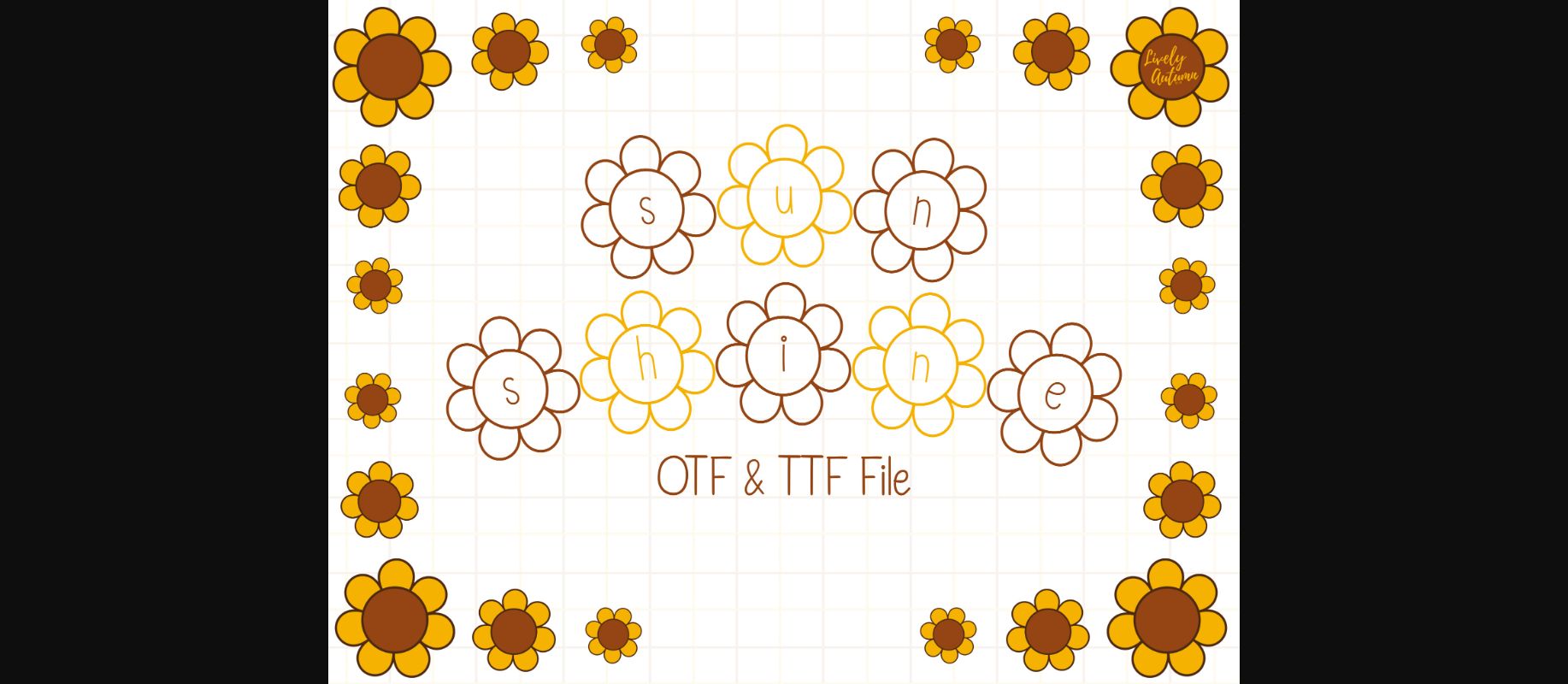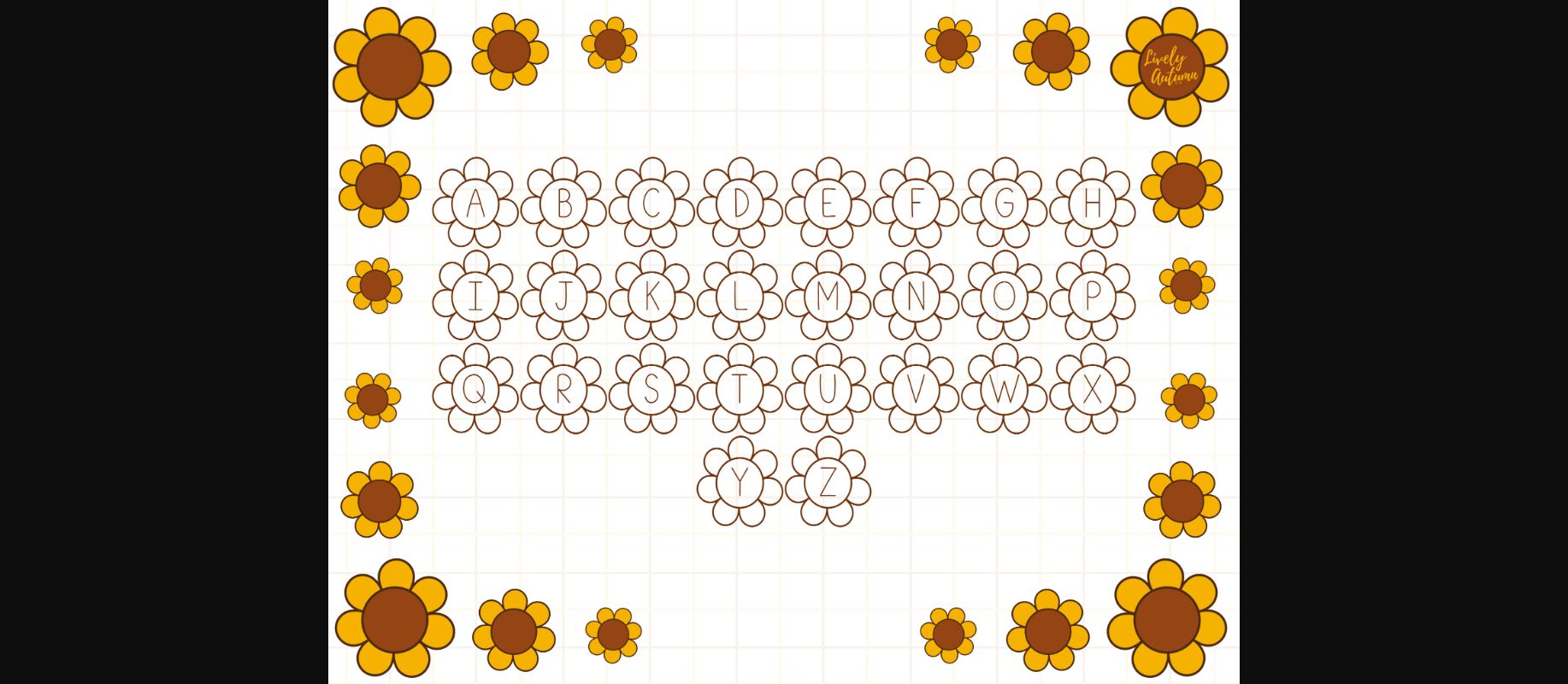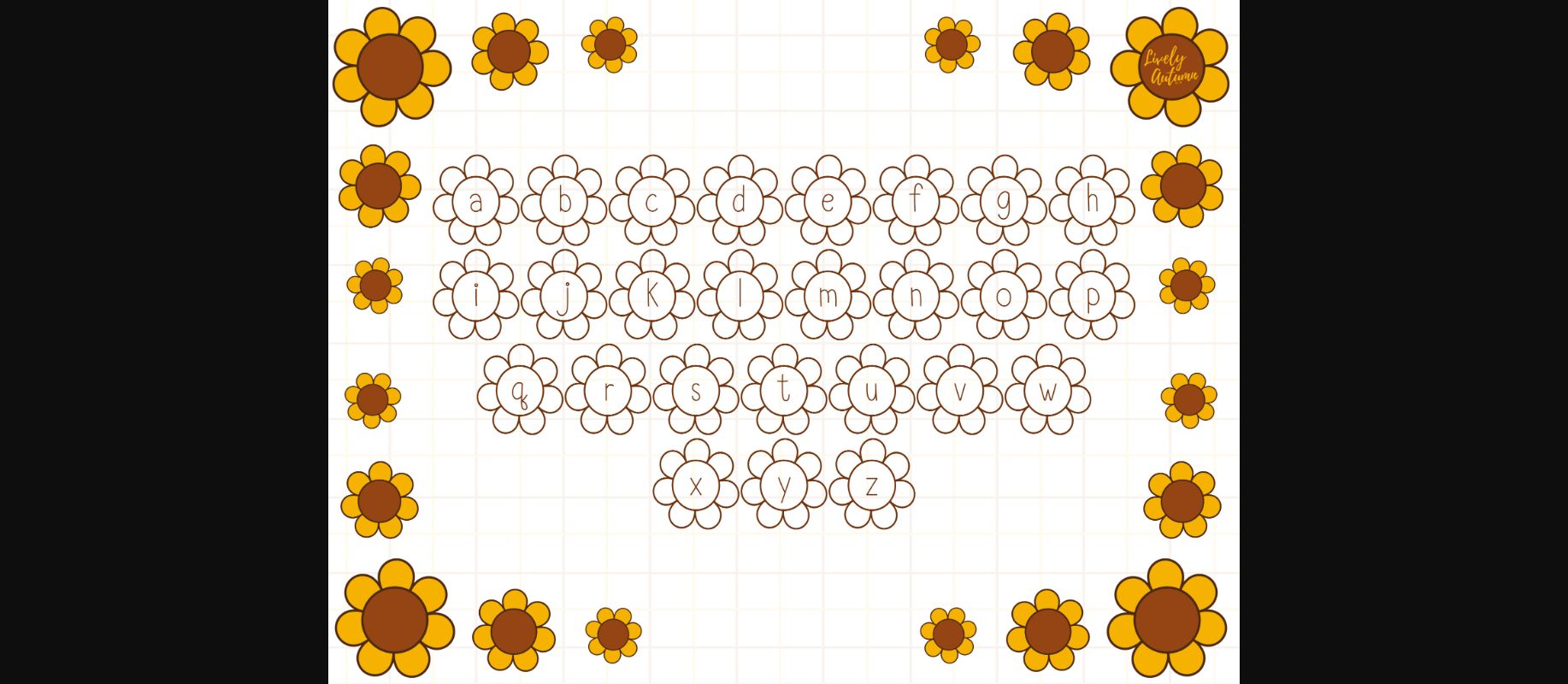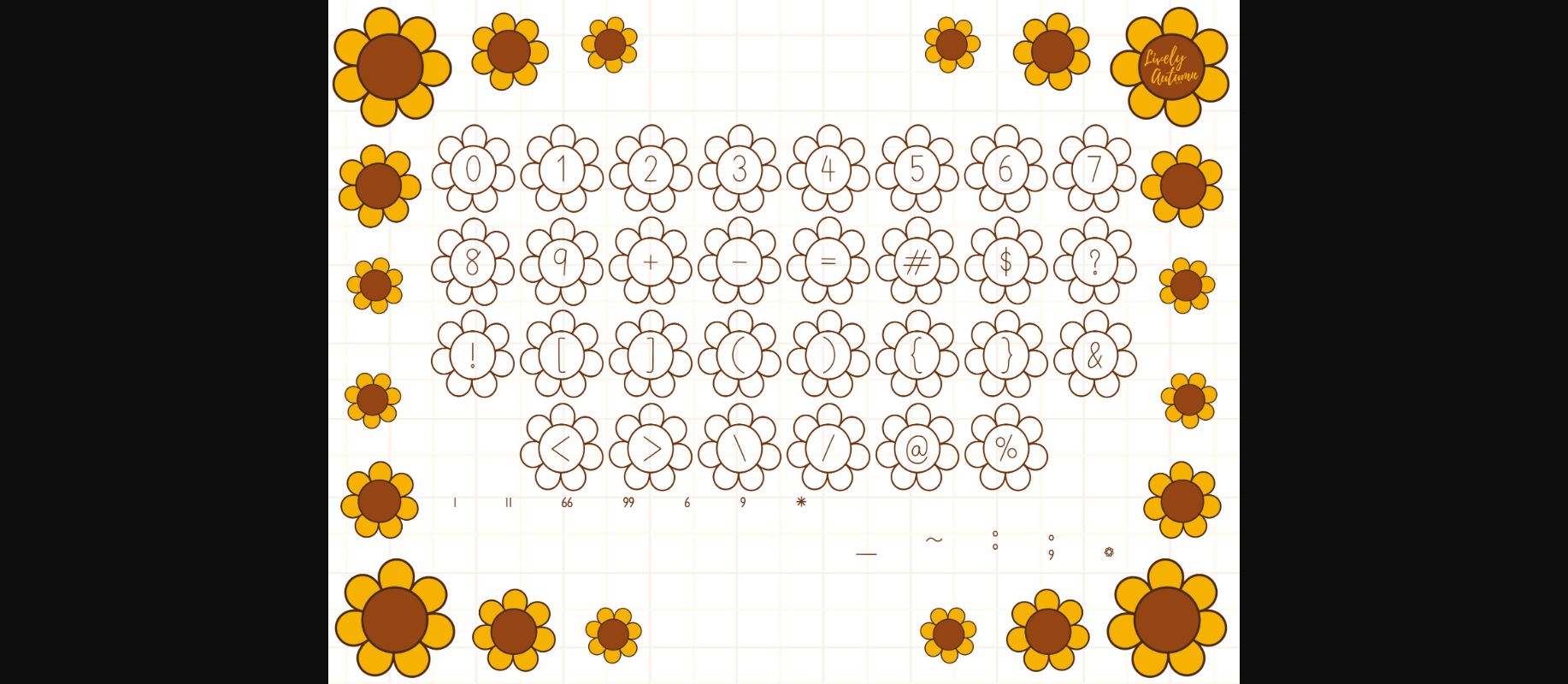
Sunshine is a fancy decorative font that has letters inside a flower. This font is perfect for your floral or spring-themed projects. Add it to invitations, posters, social media graphics, stickers, and more!